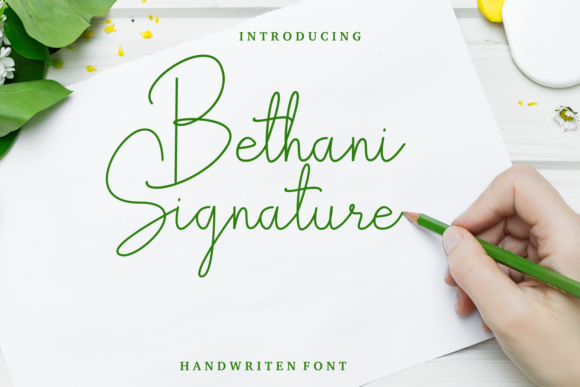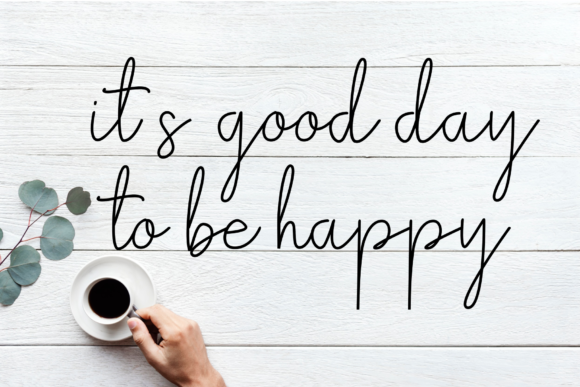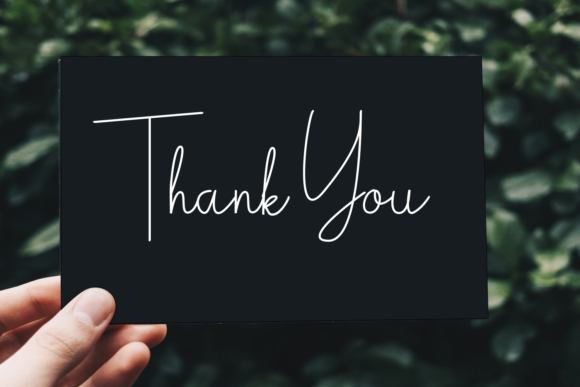
Bethani Signature Font
About Bethani Signature Font
Bethani Signature is a unique and elegant handwritten font. It looks beautiful on a variety of designs requiring a personalized style, such as wedding invitations, thank you cards, weddings, greeting cards, logos and so on.